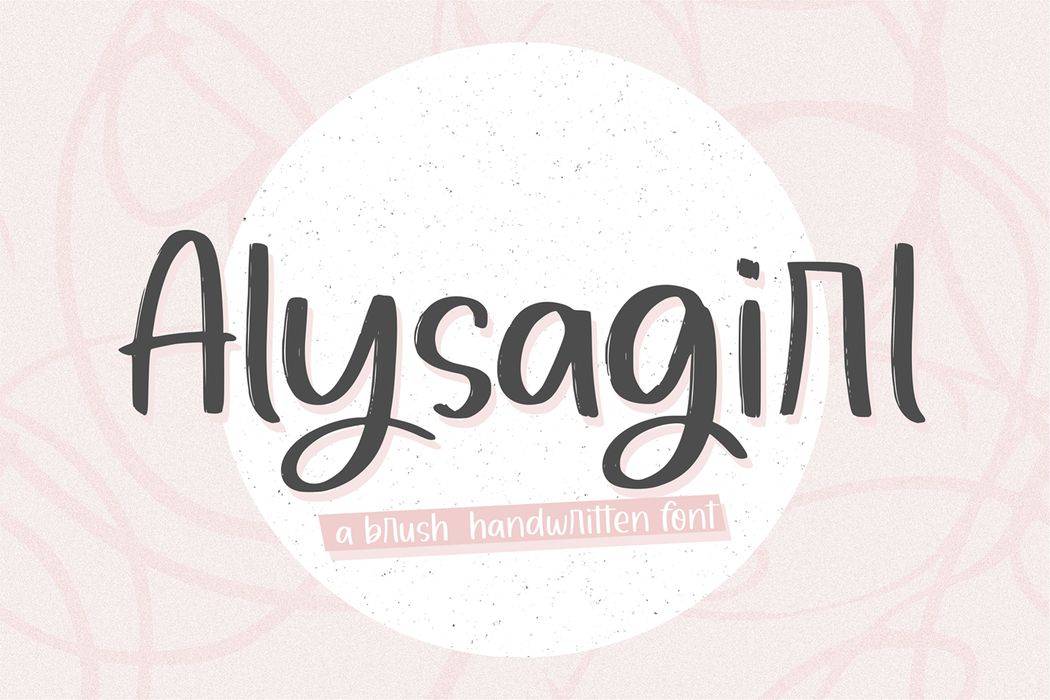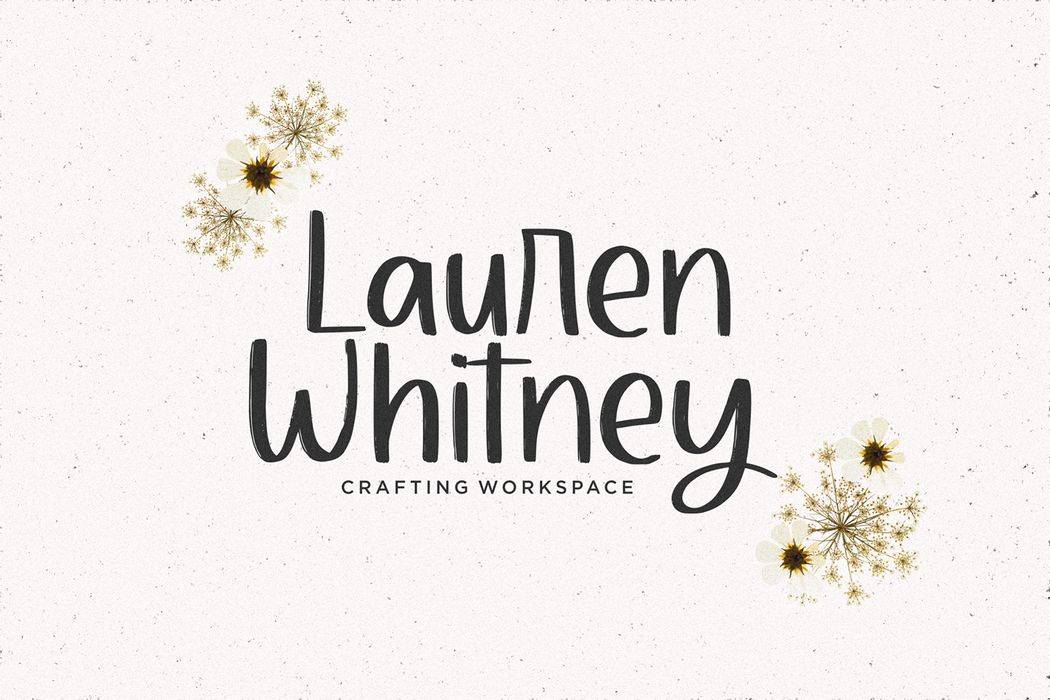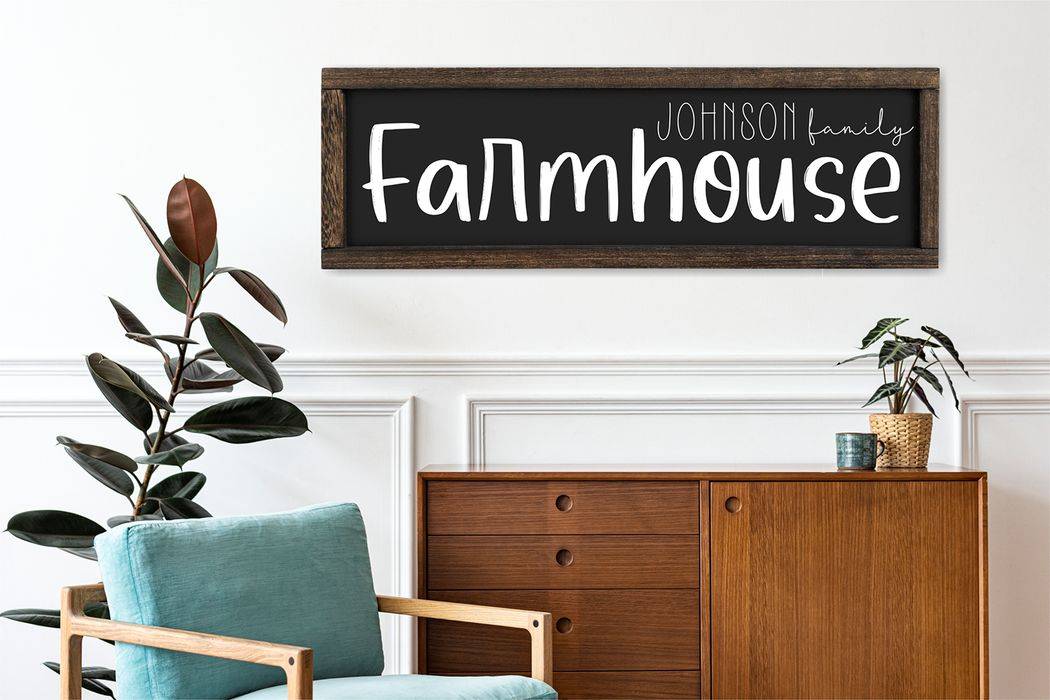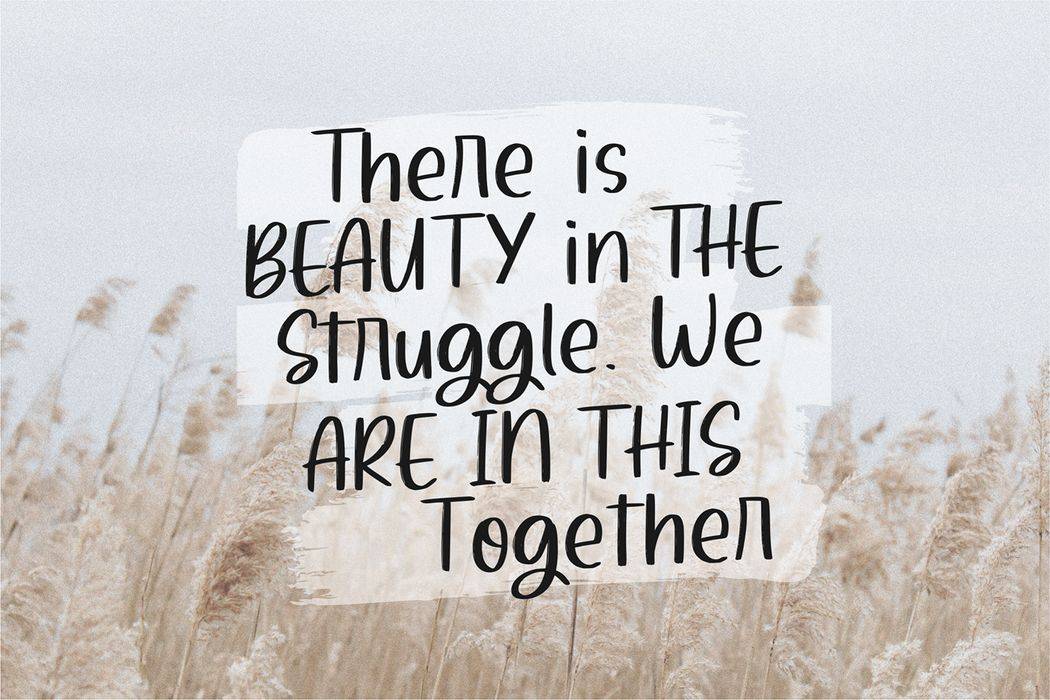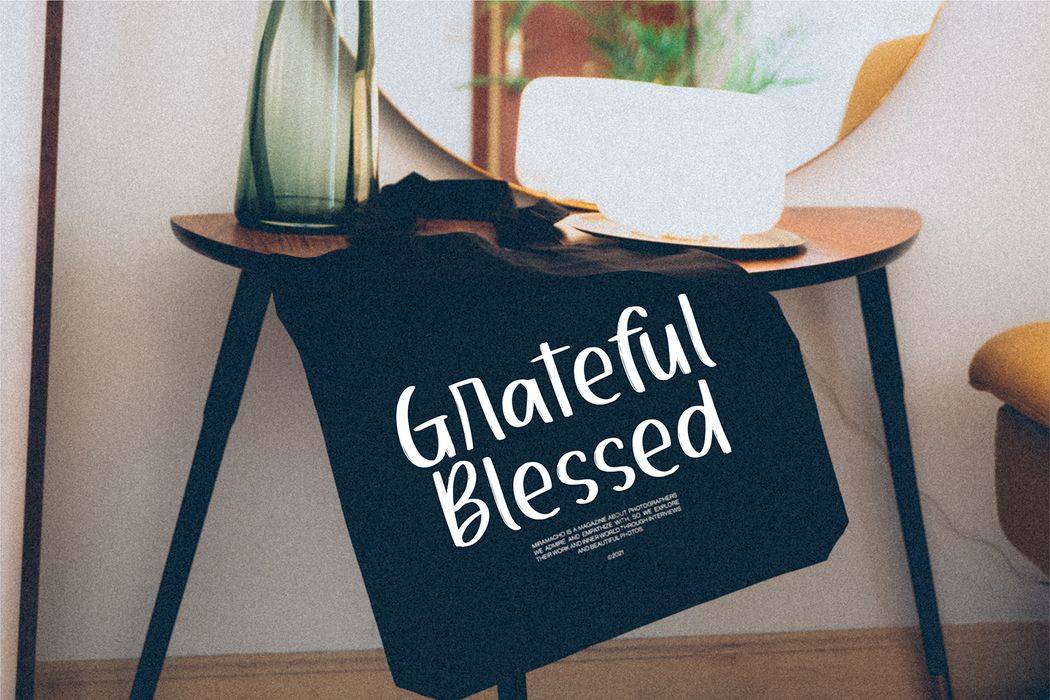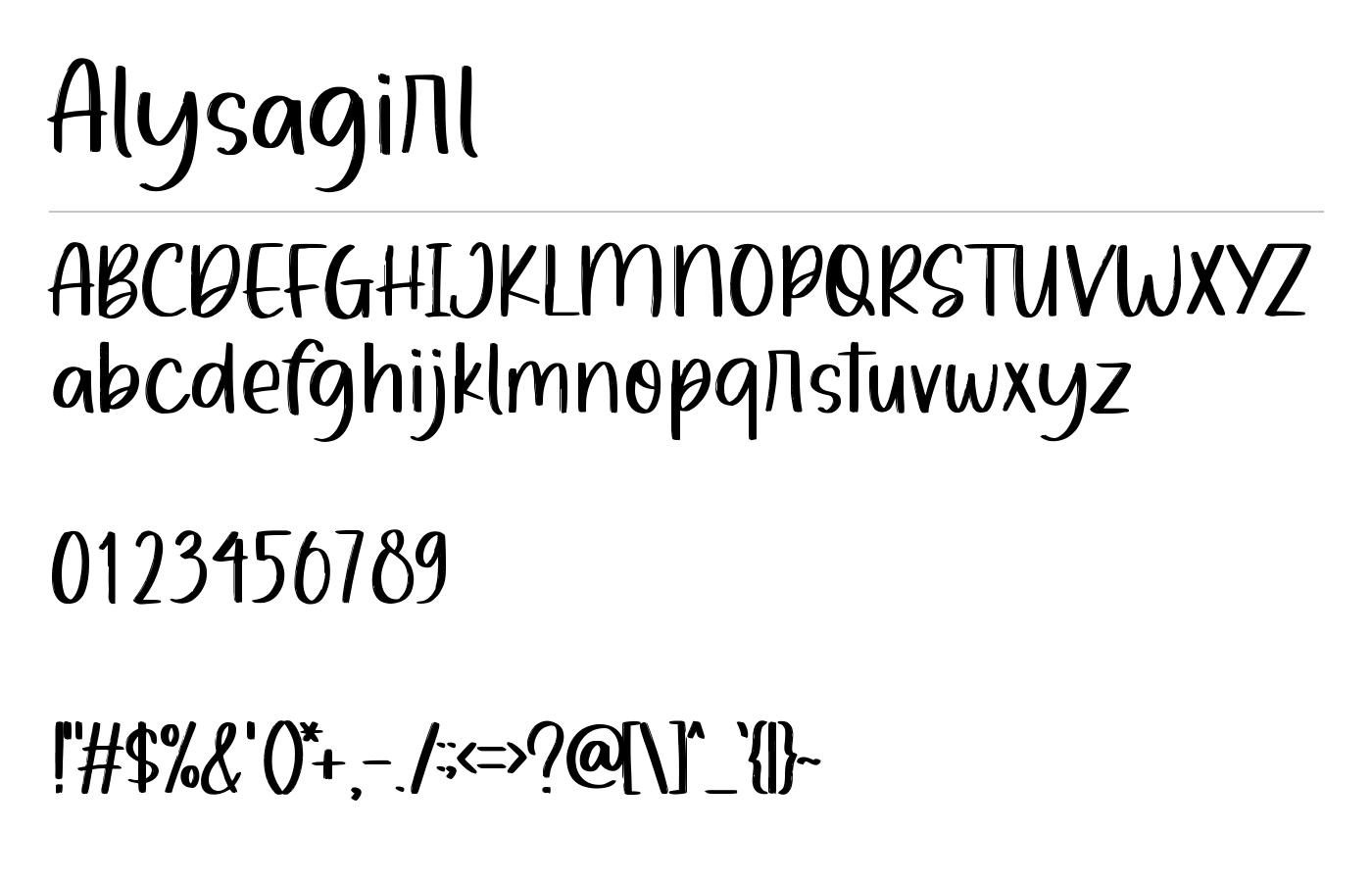
Alysagirl is a playful, casual handwritten sans serif font that features a lively, slightly irregular stroke style, giving it a friendly and approachable feel. Its moderate weight and tall x-height make it easy to read while maintaining a personal, informal touch, ideal for creative projects, branding, or invitations that seek warmth and personality. This font works well for headlines, logos, and any design that benefits from a youthful, hand-crafted aesthetic.
Alysagirl Font
About Alysagirl Font